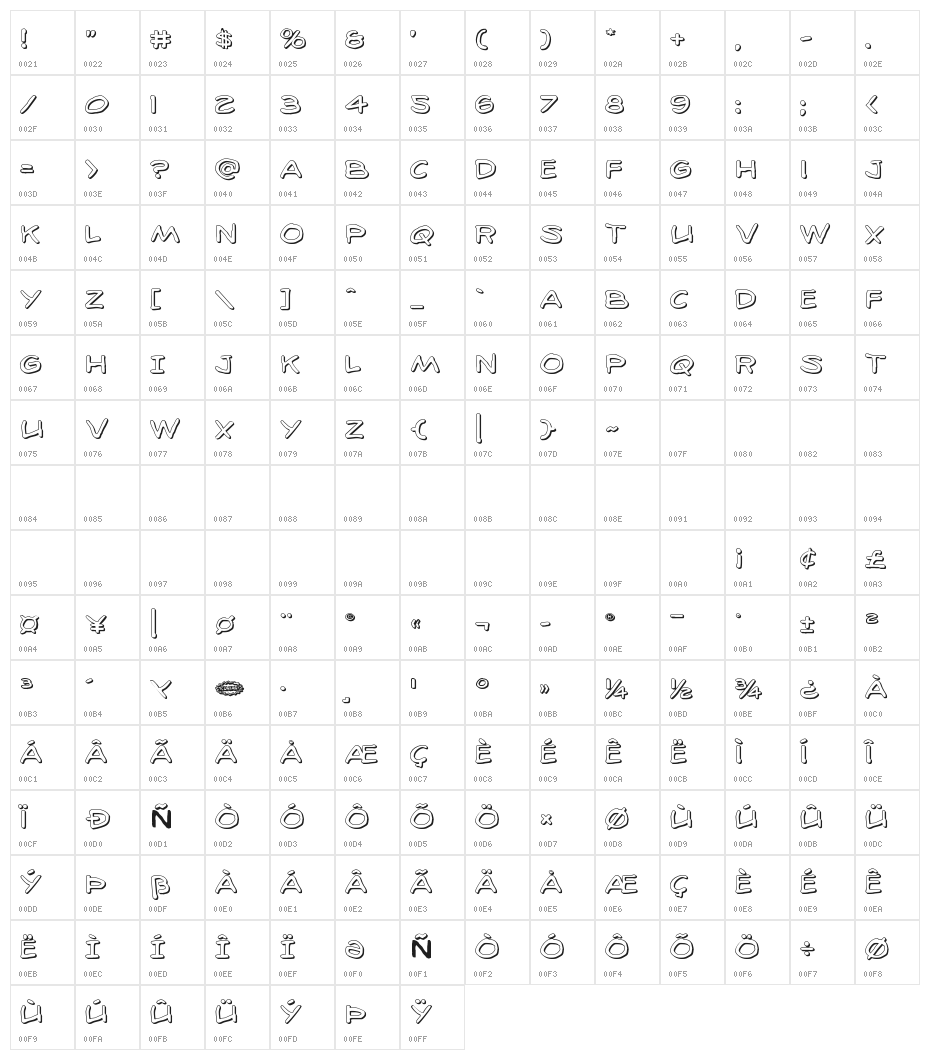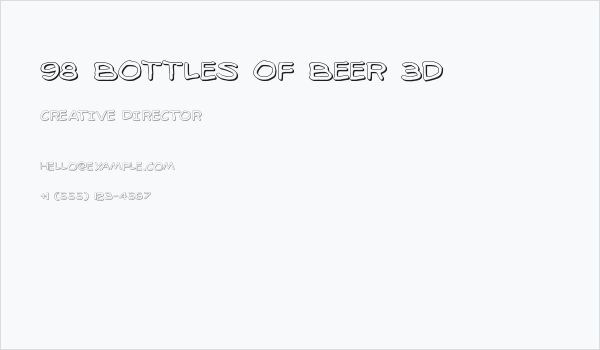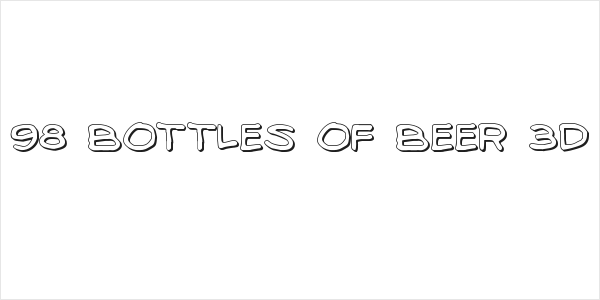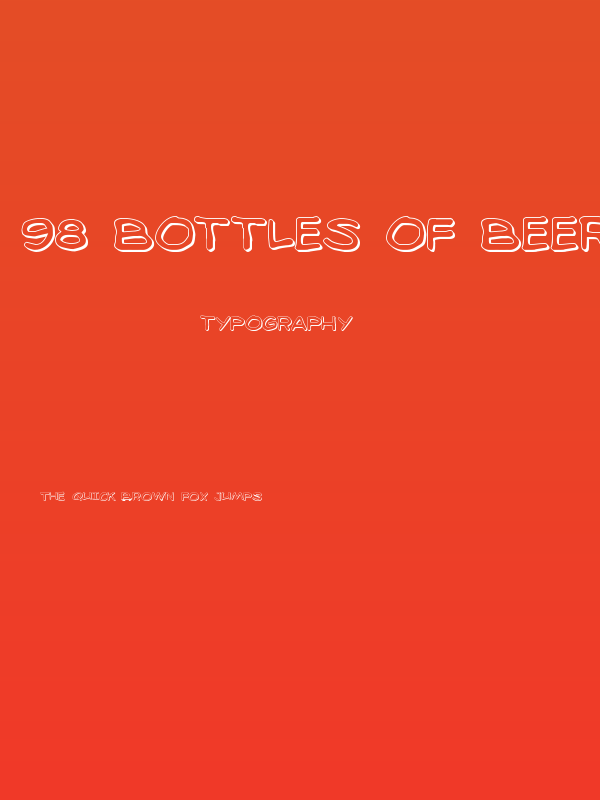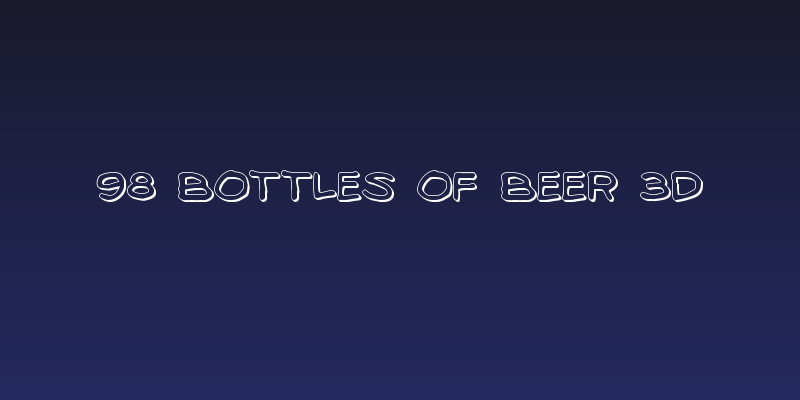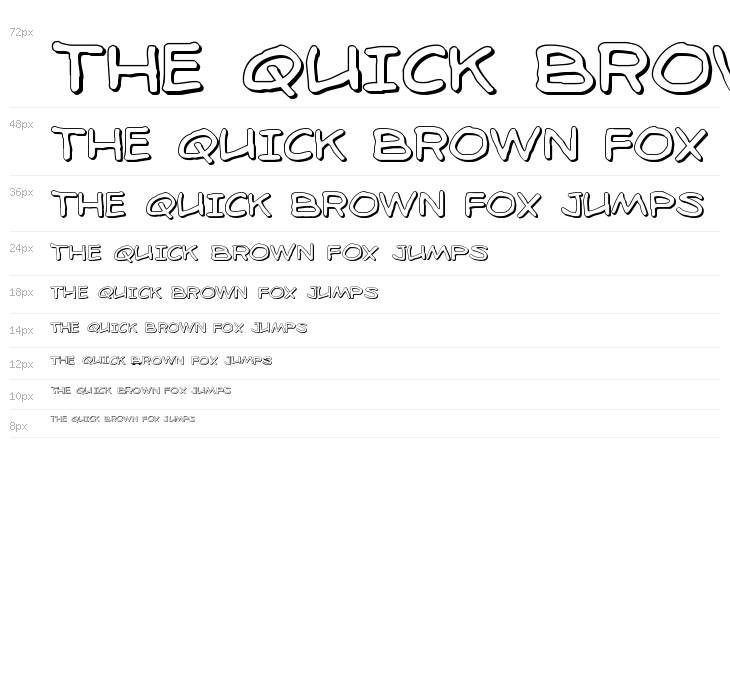
98 Bottles of Beer 3D Font
98 Bottles of Beer 3D Description
This font features a playful, three-dimensional style with a bold outline that gives each character a distinct, cartoonish appearance. The letters are rounded and have a consistent thickness, creating a bubbly and approachable look. The uppercase and lowercase letters maintain a uniform style, while the numbers and special characters integrate seamlessly with the overall design. This font's whimsical nature makes it ideal for projects that require a fun and engaging visual element.
| Overall Style | Playful, Cartoonish |
| Proposed Projects | Ideal for children's books, comic strips, playful branding, and party invitations. |